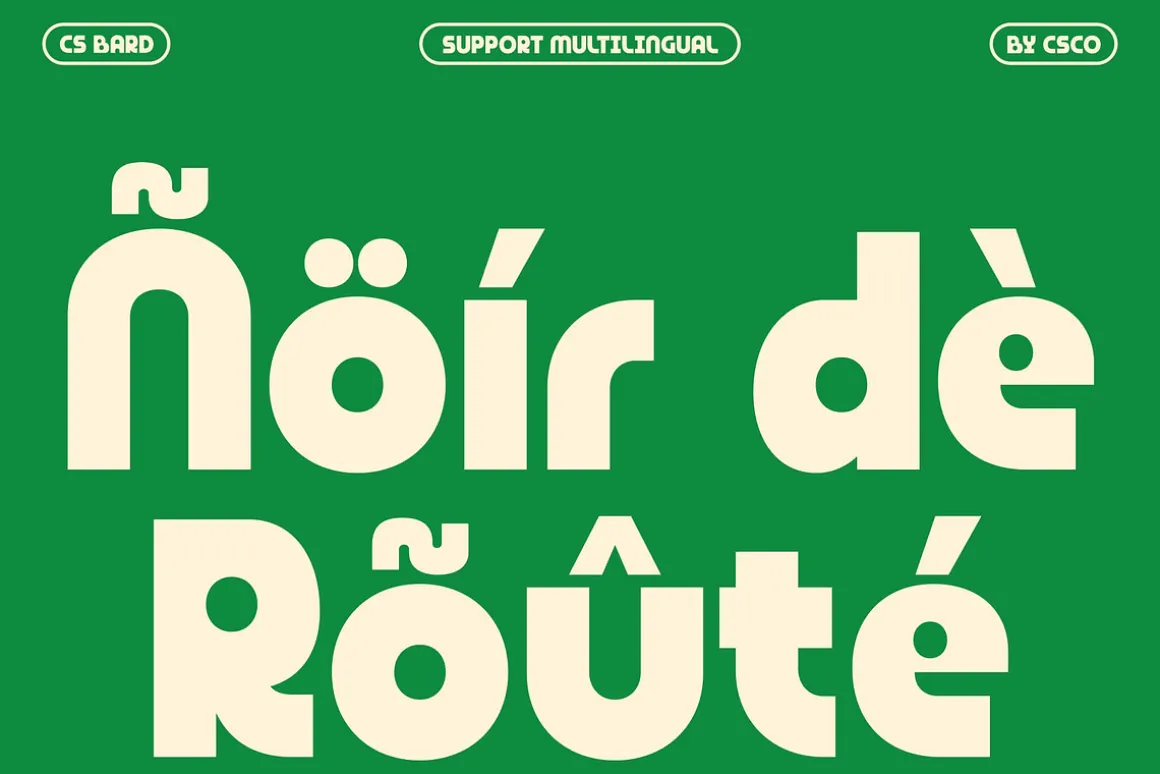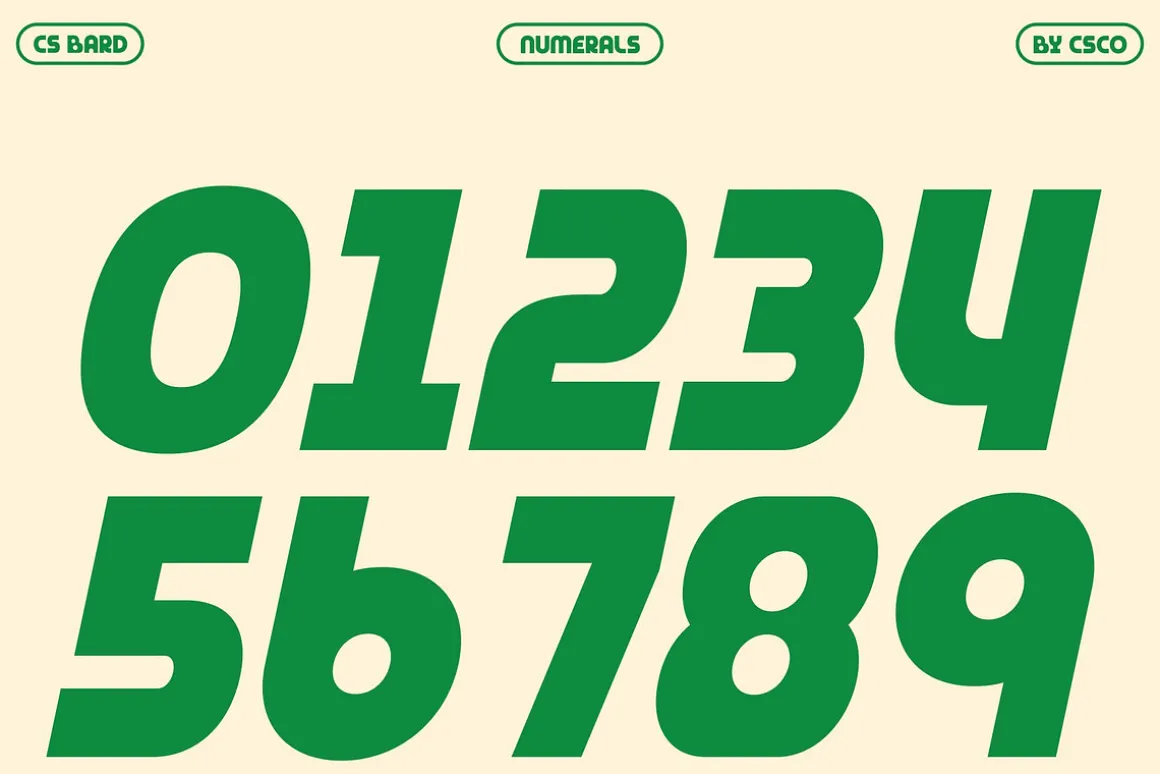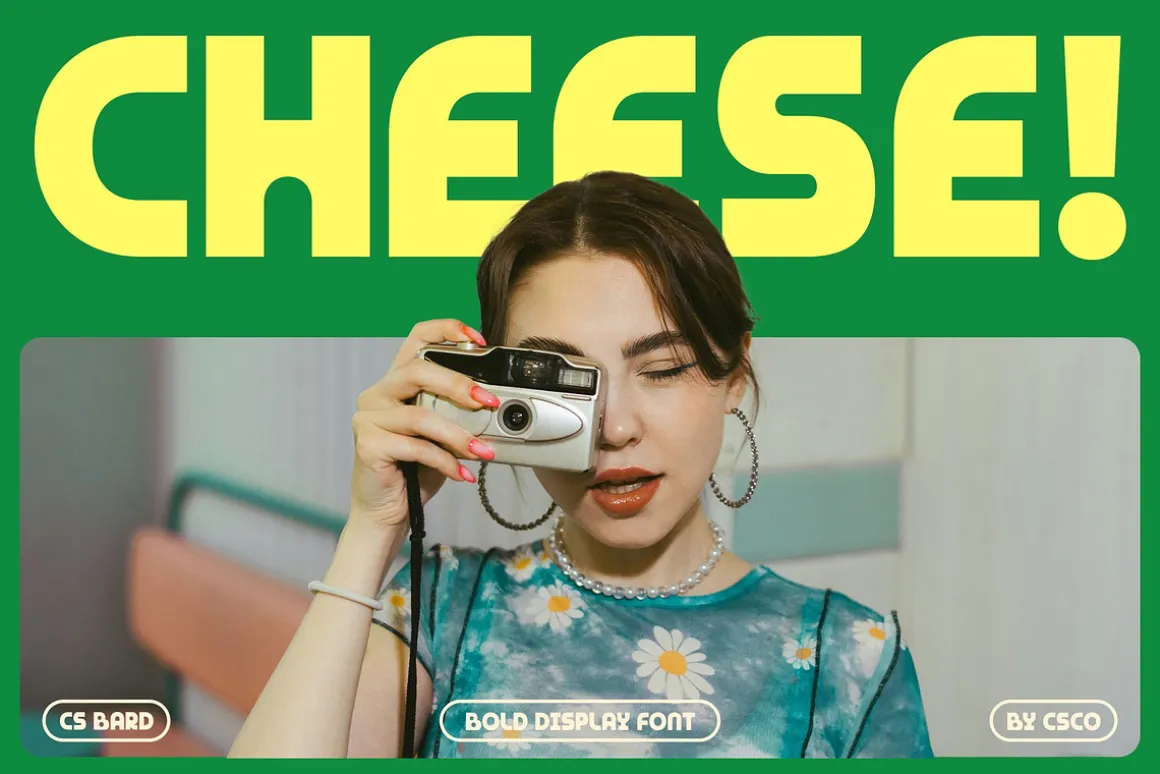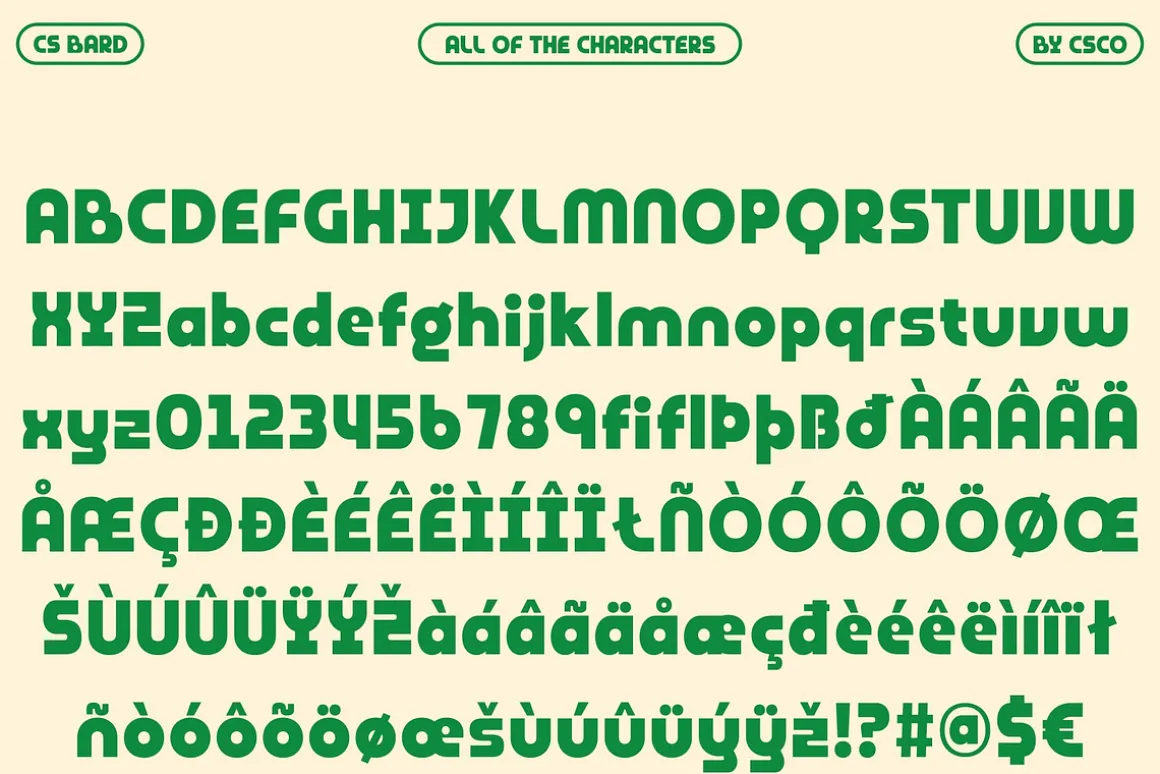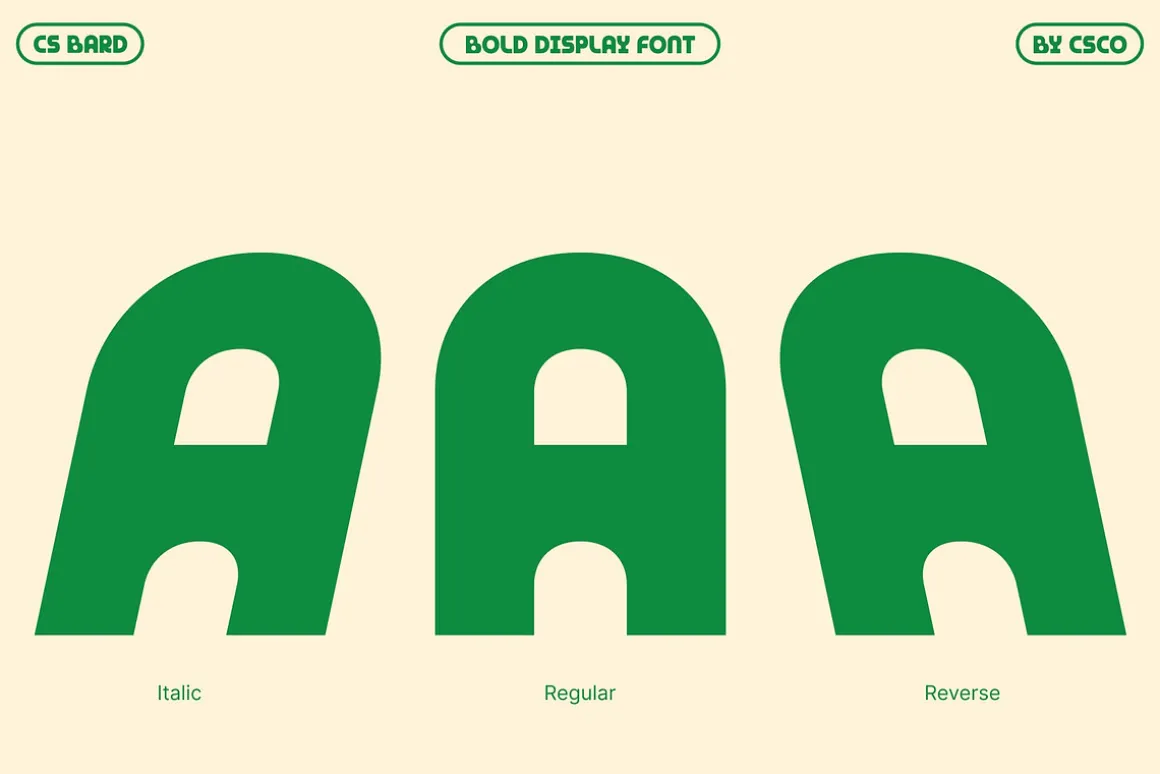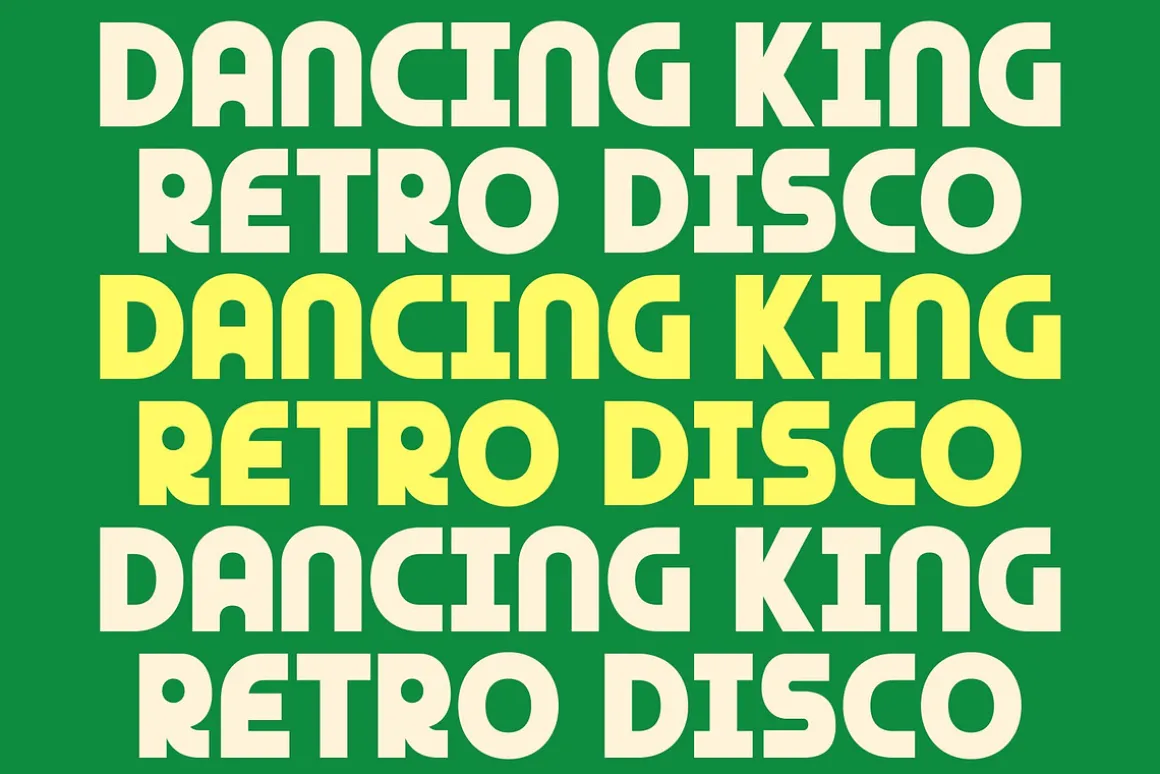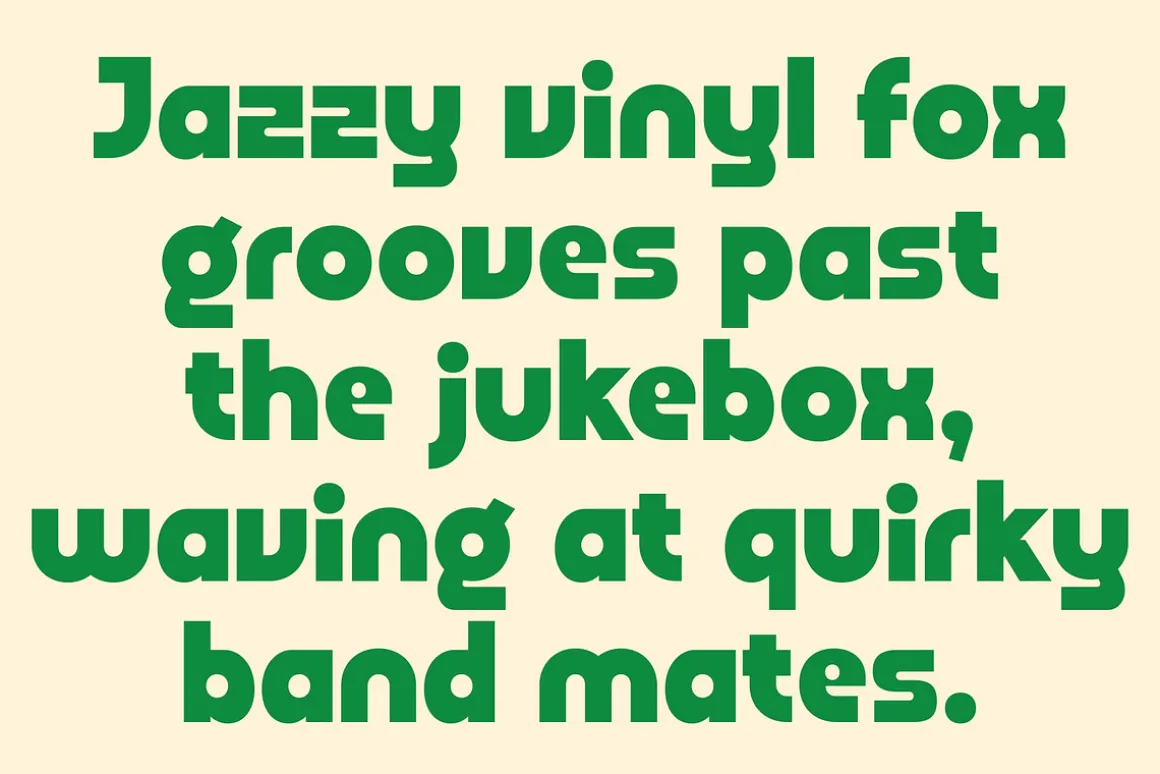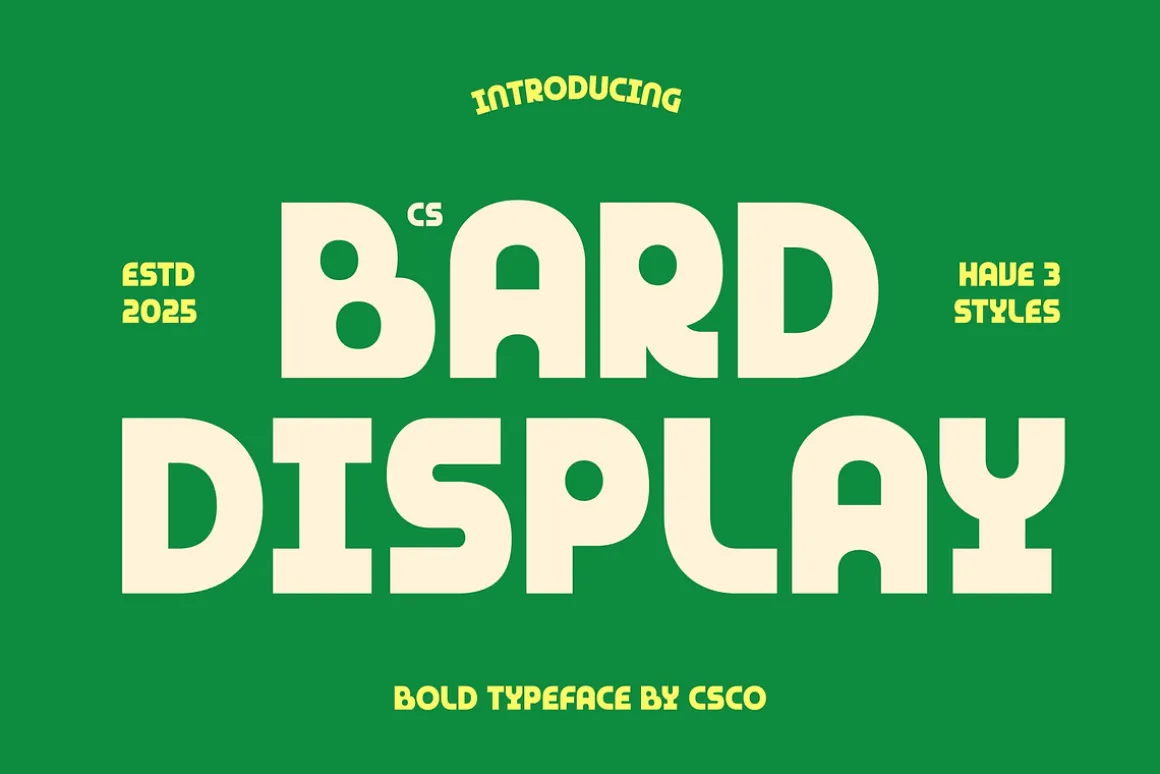
CS Bard – Bold Display Font: Chunky, Modern, and Playful
Chunky and Strong DisplayThis is a bold, chunky display font that exudes confidence and personality. Its thick strokes and geometric forms give it a strong, modern aesthetic, making it ideal for designs that demand attention. Whether used for headlines, posters, or branding, delivers impact with every letter, ensuring your message stands out in any context.
Playful Charm and Quirky DetailsBeyond its boldness, features subtle quirky details that add a playful and engaging character. These unique touches give the font a sense of charm and approachability, balancing strength with creativity. It’s perfect for projects that want to combine bold visual impact with a friendly, energetic vibe.
Versatile for Creative ApplicationsThis font shines in a variety of creative applications, from product packaging and social media graphics to editorial layouts and promotional materials. Its clean lines and geometric structure maintain readability while adding a contemporary edge, making it suitable for both professional and playful designs.
Eye-Catching and MemorableThis versatile display font ensures that your designs are not only bold but also memorable. This font brings personality, charm, and modernity to every project, making it the perfect choice for designers seeking a typeface that combines impact with style and creativity.